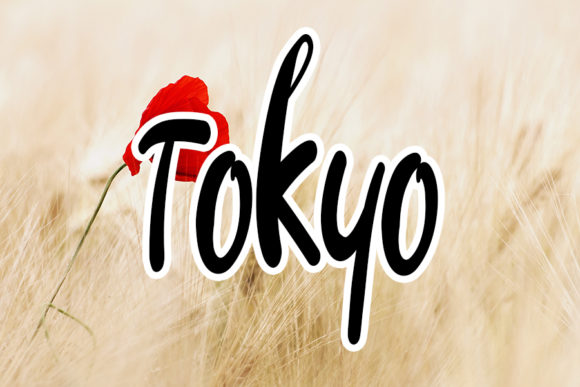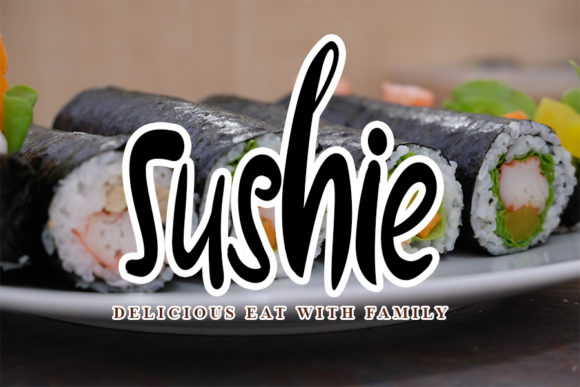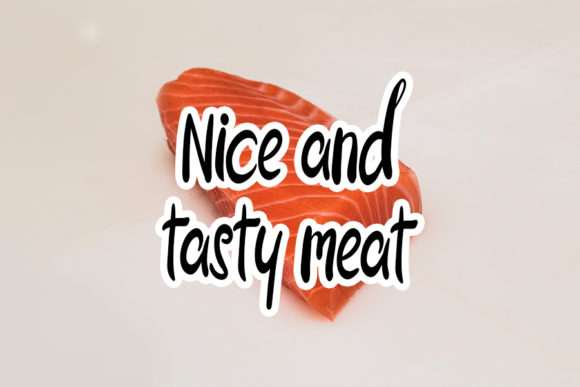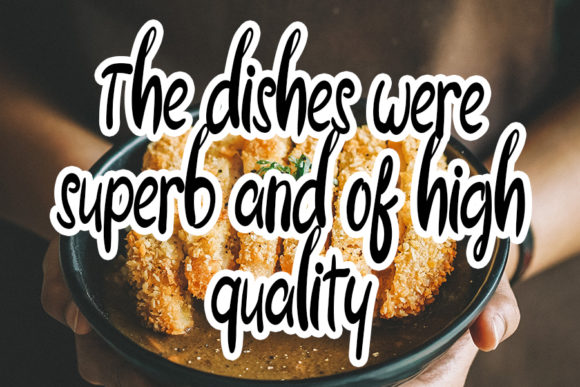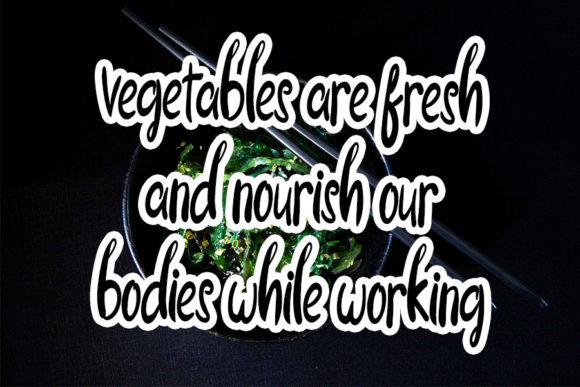
Introduction to Japan Tour Font
Japan Tour is a casual and modern handwritten font.
Its natural and unique style makes it incredibly fitting to a large pool of designs .
Key Features of Japan Tour Font
Why Choose Japan Tour Font?
Japan Tour Font offers exceptional quality and versatility, making it a valuable addition to your design toolkit. Whether you’re creating for personal projects or commercial use, Japan Tour Font delivers professional results.